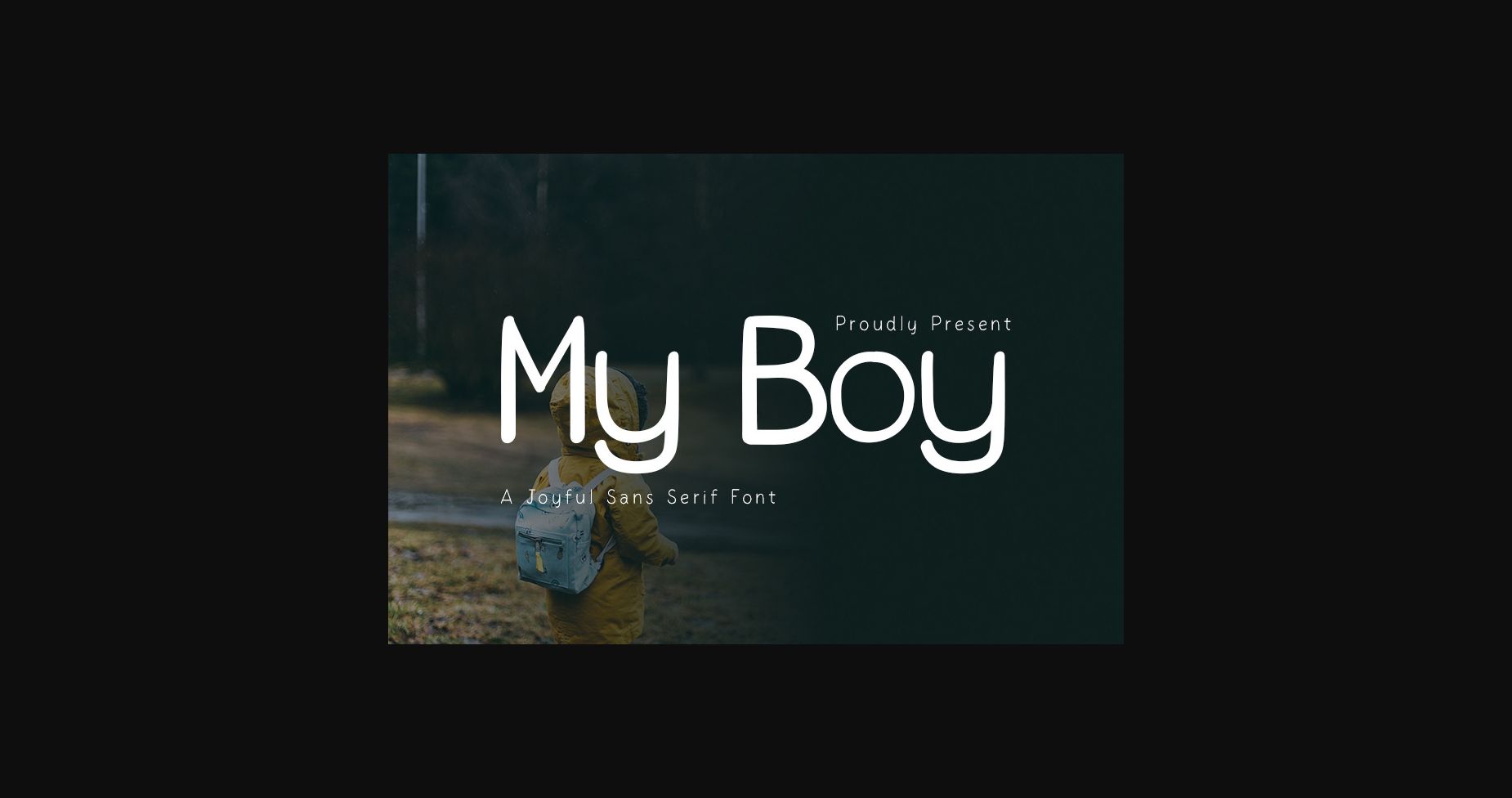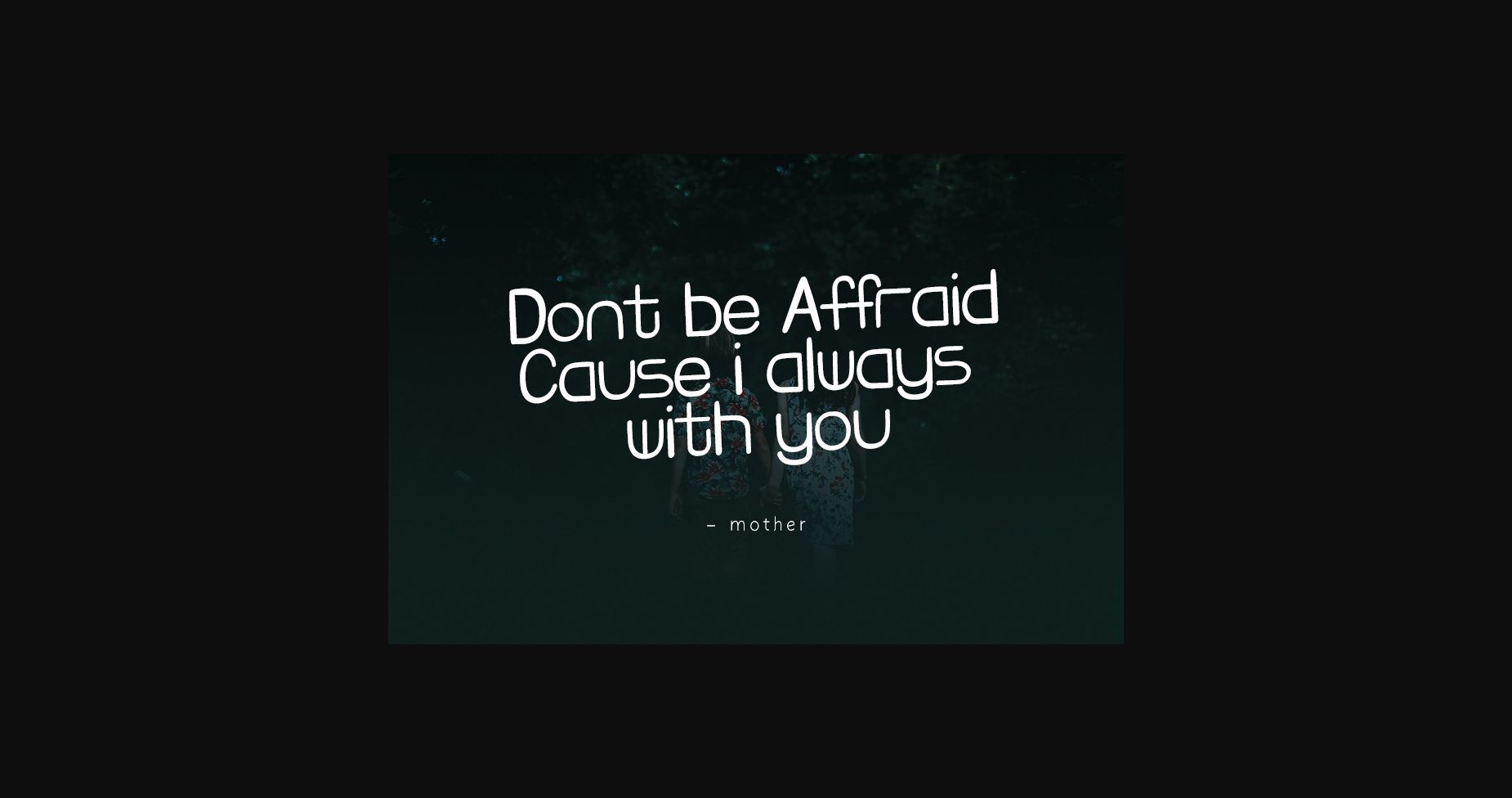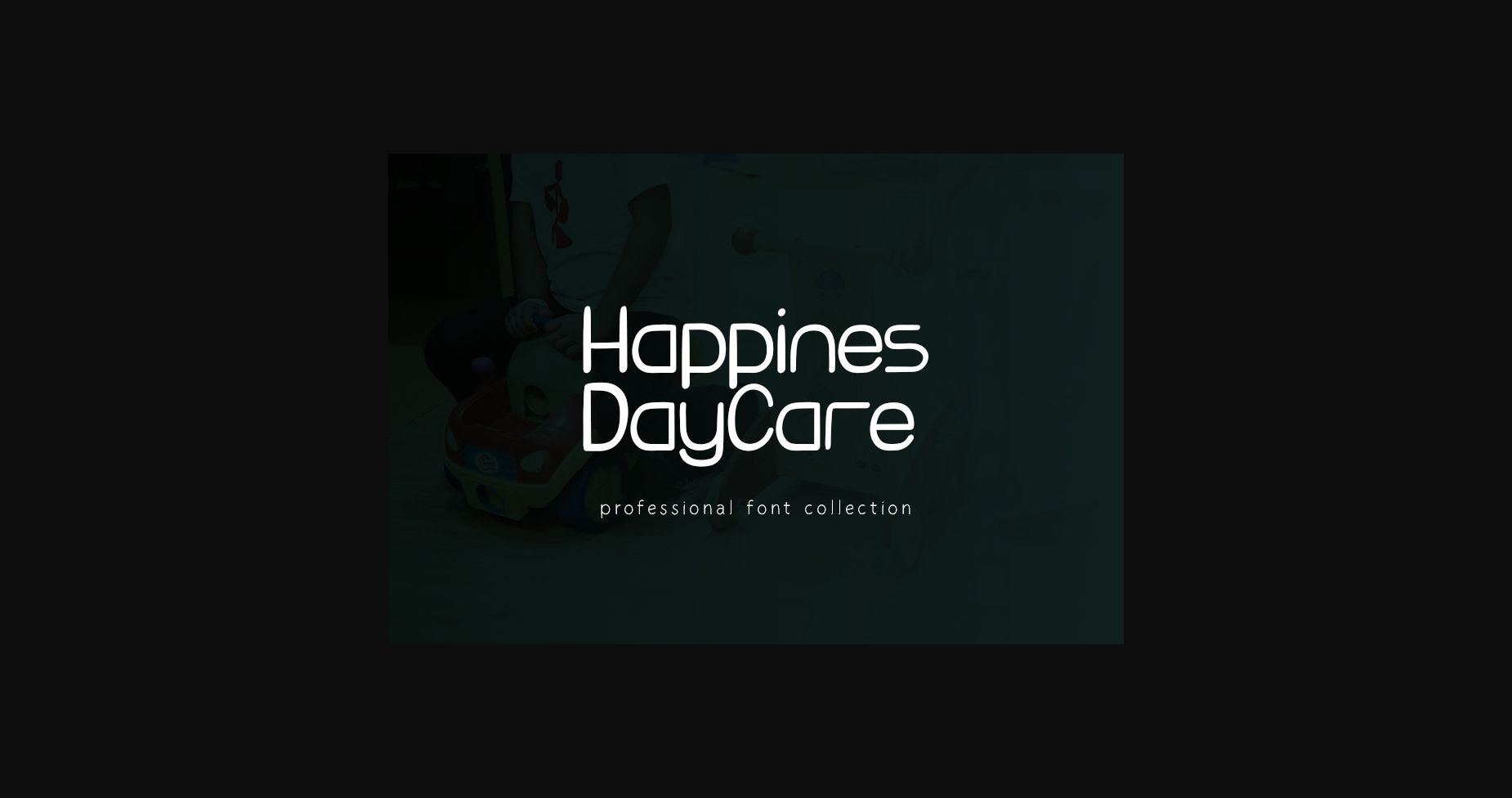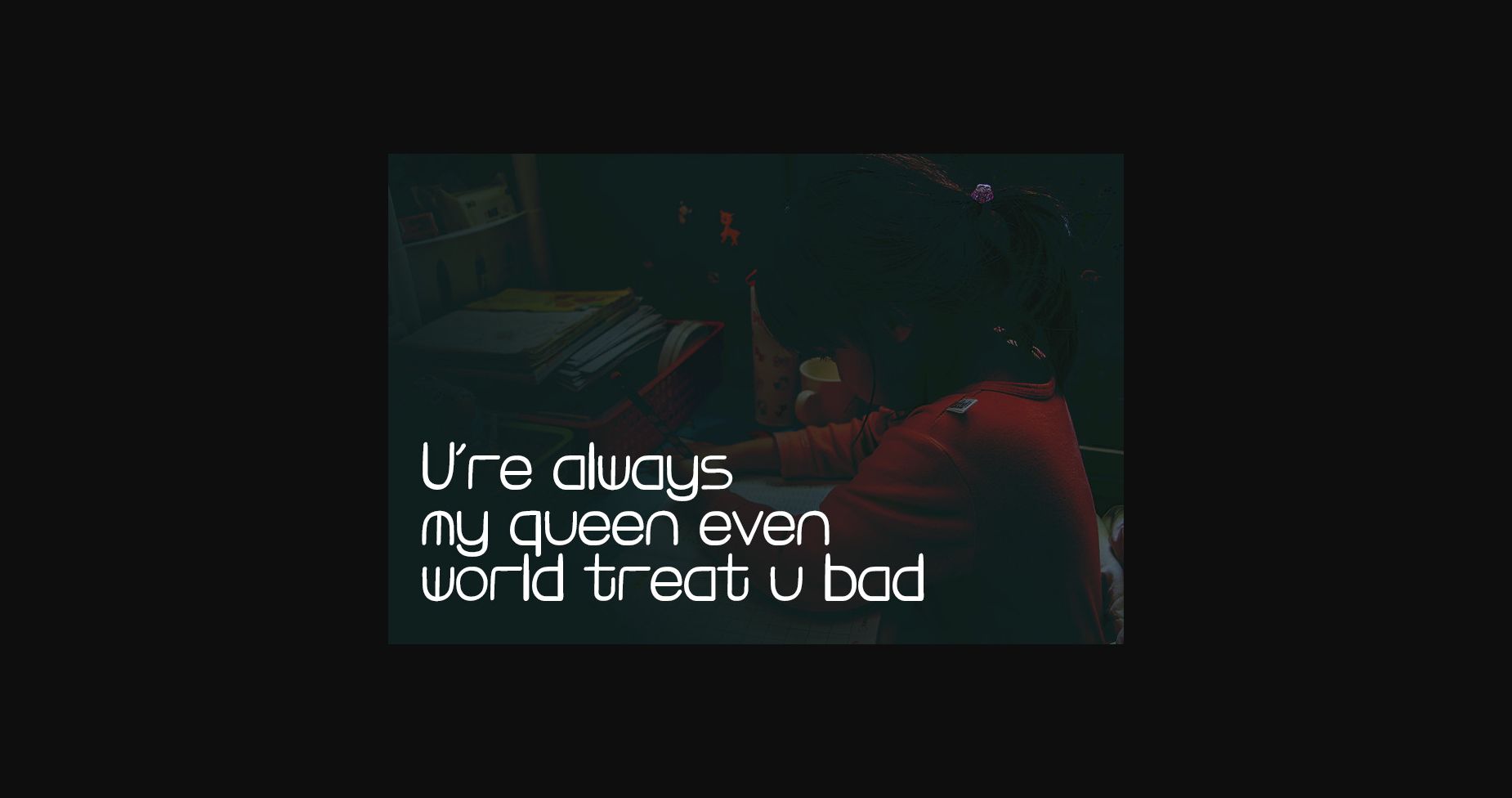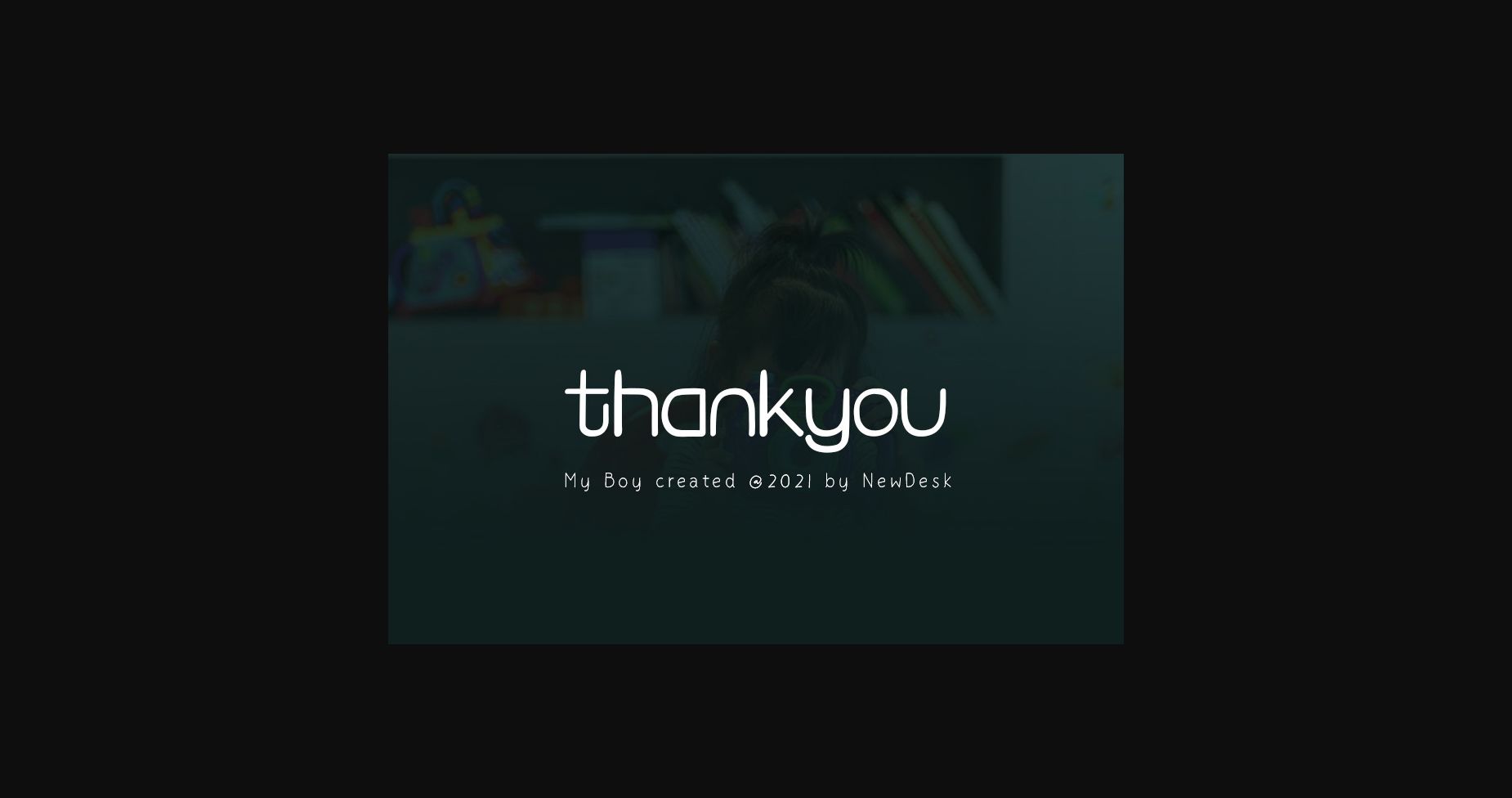
HomeSans Serif FontsMy Boy Font Sans Serif Fonts My Boy Font FacebookXPinterestWhatsApp 1 of 7 ... My Boy Font Poster 2... My Boy Font Poster 3... My Boy Font Poster 4... My Boy Font Poster 5... My Boy Font Poster 6... My Boy Font Poster 7... About My Boy Font My Boy is a simple and thin lettered sans serif font. No matter the topic, this font will be an incredible asset to your fonts’ library, as it has the potential to elevate any creation. DOWNLOAD NOW People also explored Goodness Cakes Font Better Yesterday Font Rollina Font Rasa Italia Font Snowfall Font Hymala Font Summer Handmade Font Wild Bold Font Romy Style Font 279 0 TagsMy BoyMy Boy Font Previous articleStagnan FontNext articleGlorius Font LEAVE A REPLY Cancel reply Comment: Please enter your comment! Name:* Please enter your name here Email:* You have entered an incorrect email address! Please enter your email address here Website: Save my name, email, and website in this browser for the next time I comment. Personal Use Free Mellow Personal Use Free Read more about this font Jelly Fish Personal Use Free Read more about this font Mixed Artistry Personal Use Free Read more about this font Open Heart Personal Use Free Read more about this font BLOG Free Fonts Risk: Why Free Fonts Can Be Dangerous for Designers Free Fonts Risk: Why Free Fonts Can Be Dangerous for Designers Using free fonts is a common practice in web and graphic design. However, the... Top 10 Handwritten Fonts That Elevate Your Designs Exploring Font Trends Best Fonts for YouTube Videos: Make Your Thumbnails Stand Out